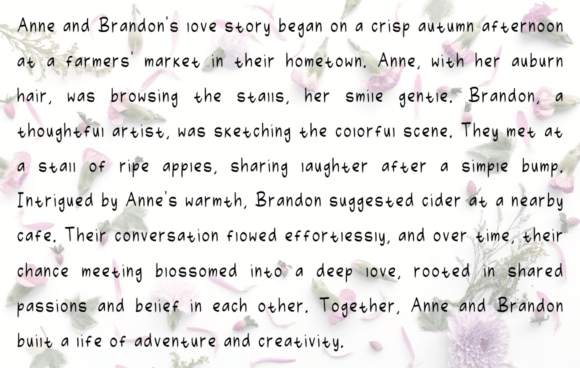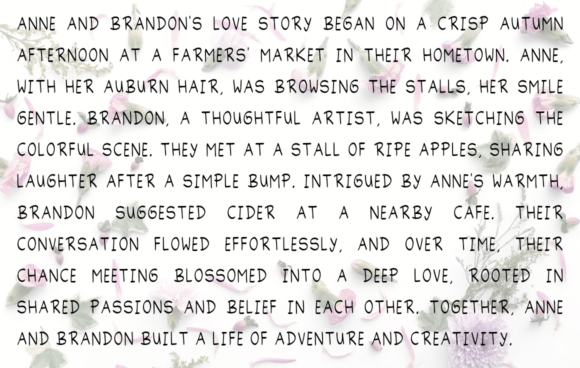
Introduction to Simple Gel Handwriting Font Font
Fonts play a crucial role in design, and the Simple Gel Handwriting Font font is a typeface that brings both character and versatility to any project. Whether you’re working on a branding project, a website, or a print design, the Simple Gel Handwriting Font font offers a unique style that can elevate your work.
Simple Gel Handwriting: Where Art Meets Letters Simple Gel Handwriting captures the nostalgic and fluid feel of writing with a smooth gel pen.
This font offers a slender, consistent stroke that feels both artistic and incredibly personal Designed for creators who appreciate a minimalist βpen-to-paperβ look, it is an excellent choice for digital journaling, delicate wedding invitations, and lifestyle photography overlays where the typography needs to feel light and authentic.
Key Features of Simple Gel Handwriting Font Font
Why Choose Simple Gel Handwriting Font Font?
The Simple Gel Handwriting Font font is more than just a typeface β it’s a design tool that helps you communicate your message with style and clarity. Its unique character set and versatile design make it suitable for a wide range of applications, from elegant invitations to bold headlines.
With its carefully crafted letterforms and balanced proportions, the Simple Gel Handwriting Font font ensures readability and visual appeal across all mediums.
What makes Simple Gel Handwriting Font font special?
The Simple Gel Handwriting Font font stands out with its unique design, exceptional readability, and versatility across various design applications.